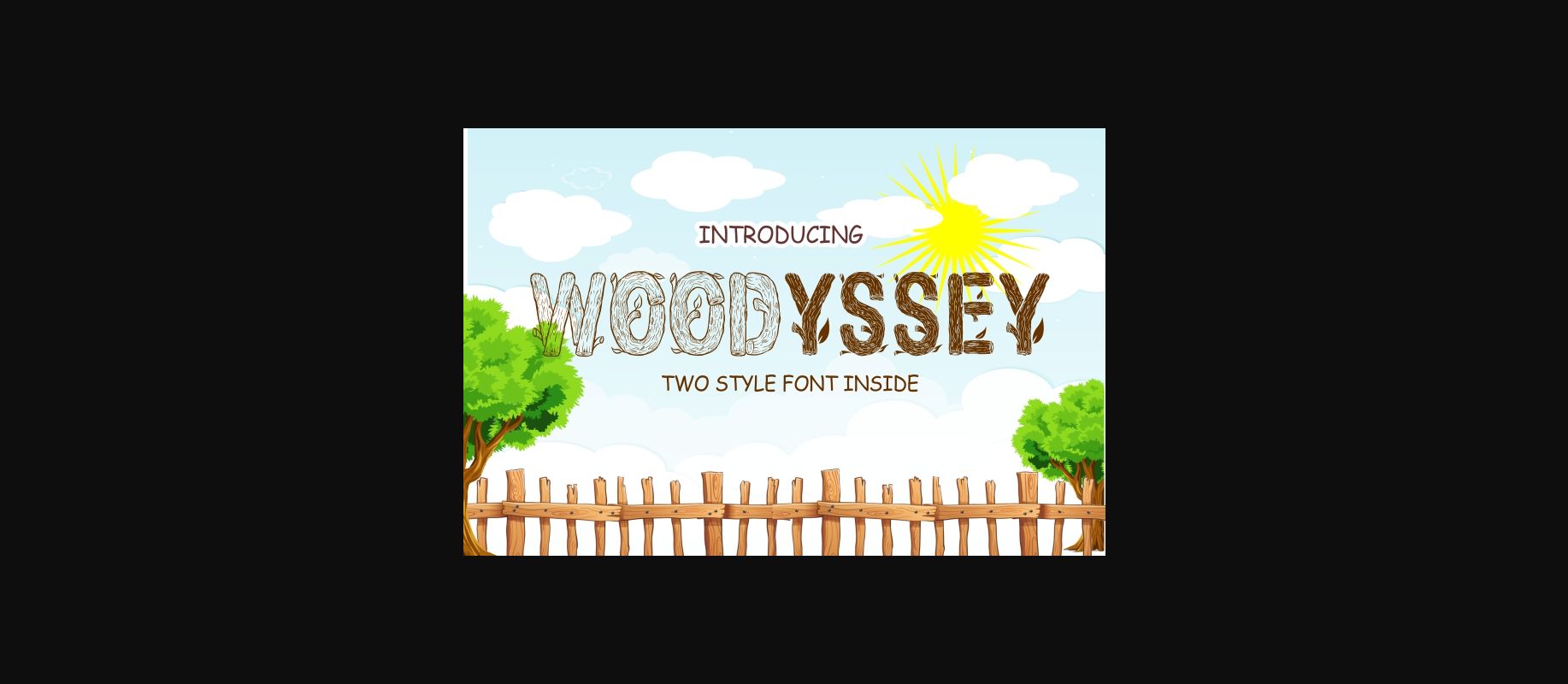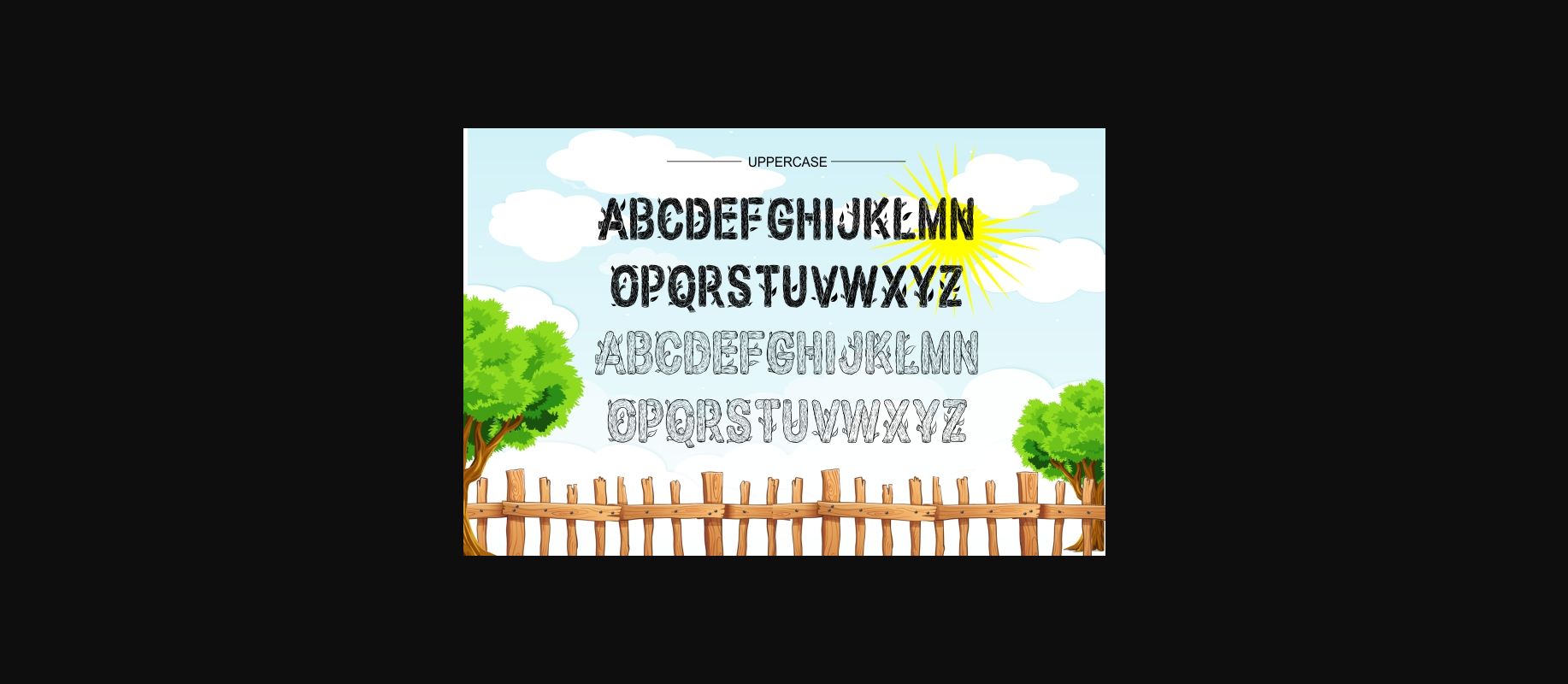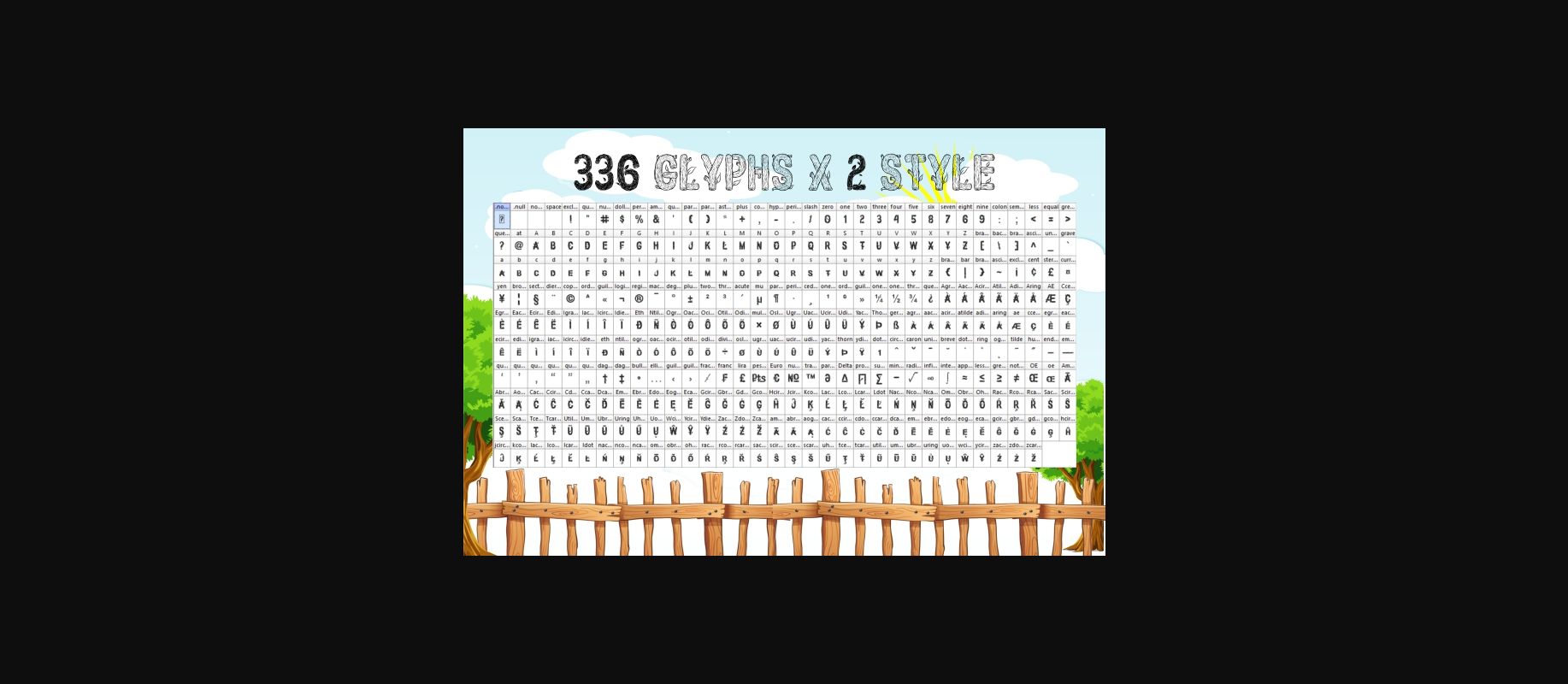
About Woodyssey Font
Woodyssey embodies fun, quirkiness and authenticity. This enchanting decorative font will turn any creative idea into a true standout.